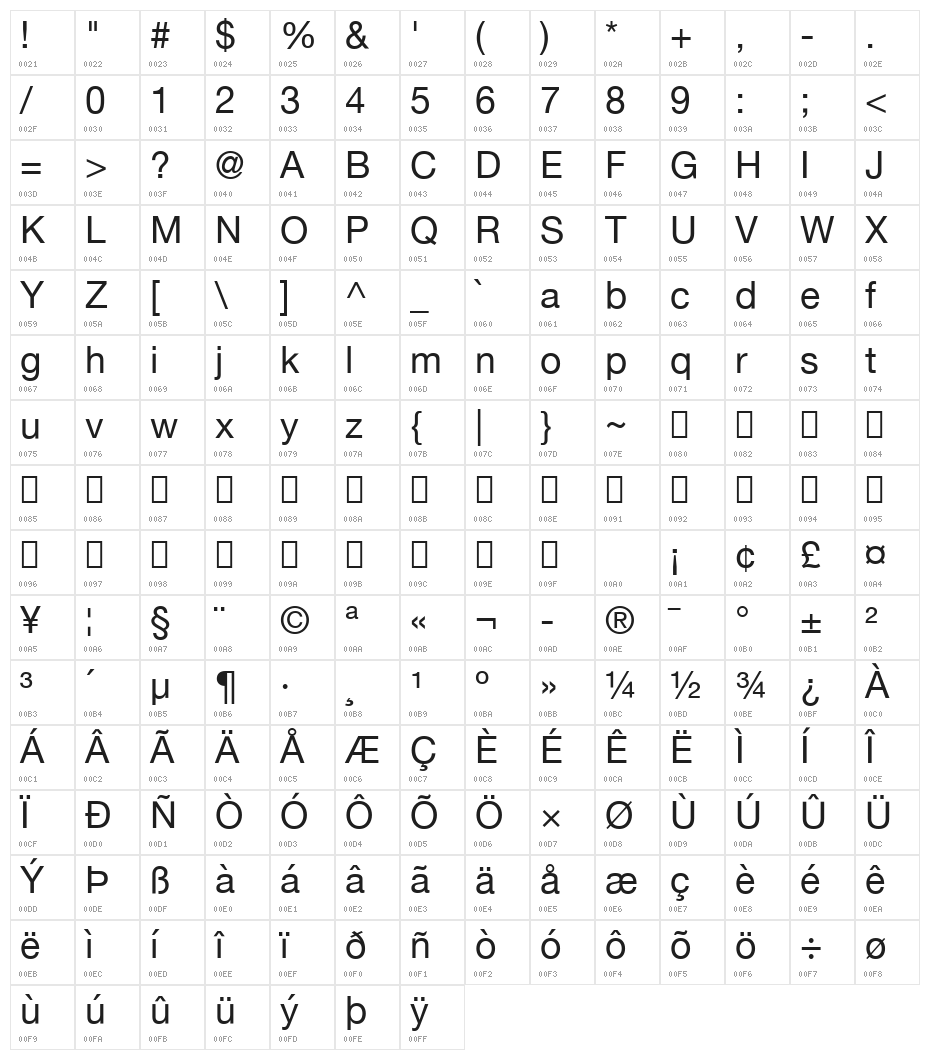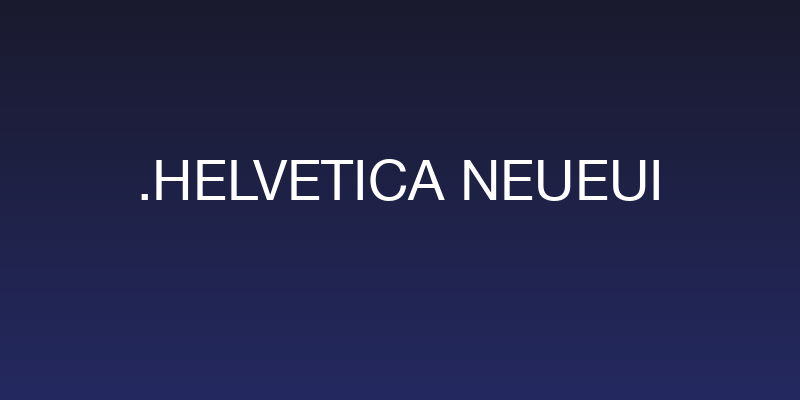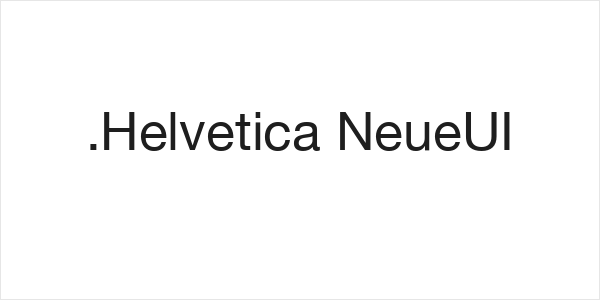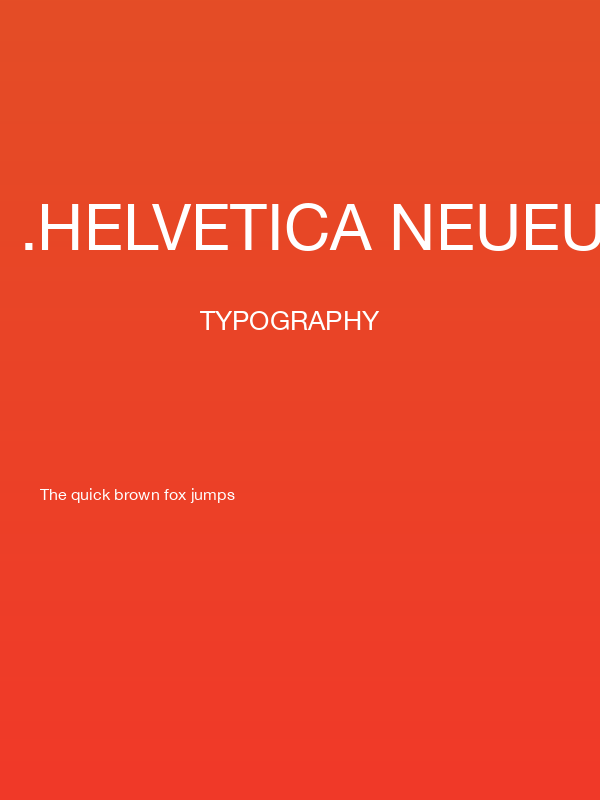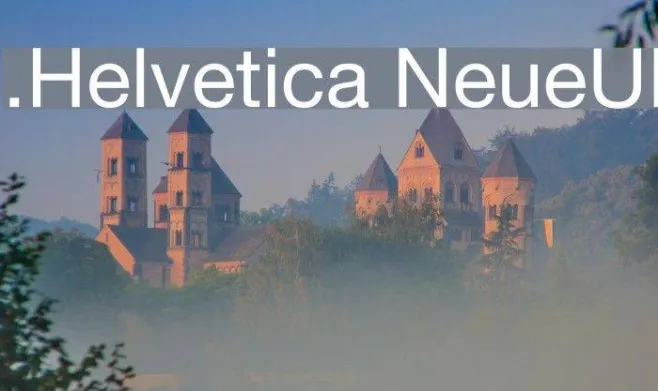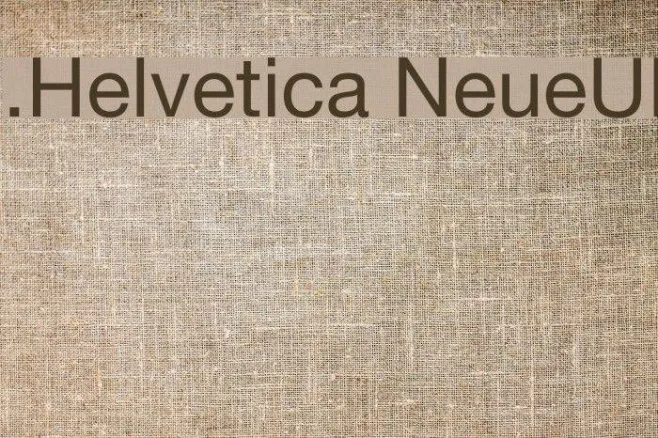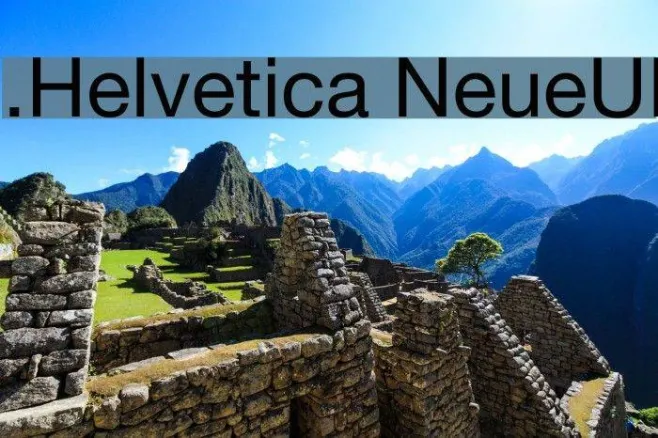
.Helvetica NeueUI Font
.Helvetica NeueUI Description
This font features a clean and modern sans-serif design, characterized by its uniform stroke width and minimalistic appearance. The characters are well-proportioned, offering excellent readability across both uppercase and lowercase letters. The numerals are clear and distinct, making them suitable for various applications. Special characters are designed with simplicity in mind, maintaining the overall aesthetic of the font. Its versatility makes it ideal for both digital and print media, providing a professional and contemporary look.
| Proposed Projects | Ideal for corporate branding, user interfaces, websites, and print materials. |